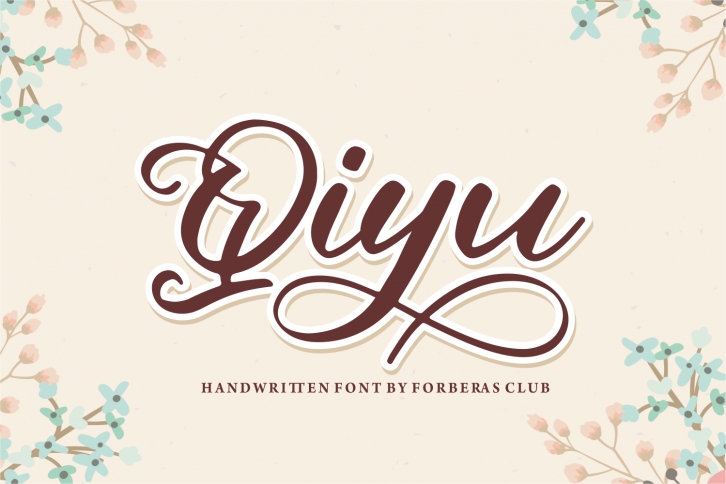
A fancy and elegant handcrafted font that create to impress your audience and make your branding shine.
Make your projects dance with this elegant and wonderful font wherever you use it. Use it for your
headings, logos, ads, printed quotes, packaging, and even your website or social media branding.